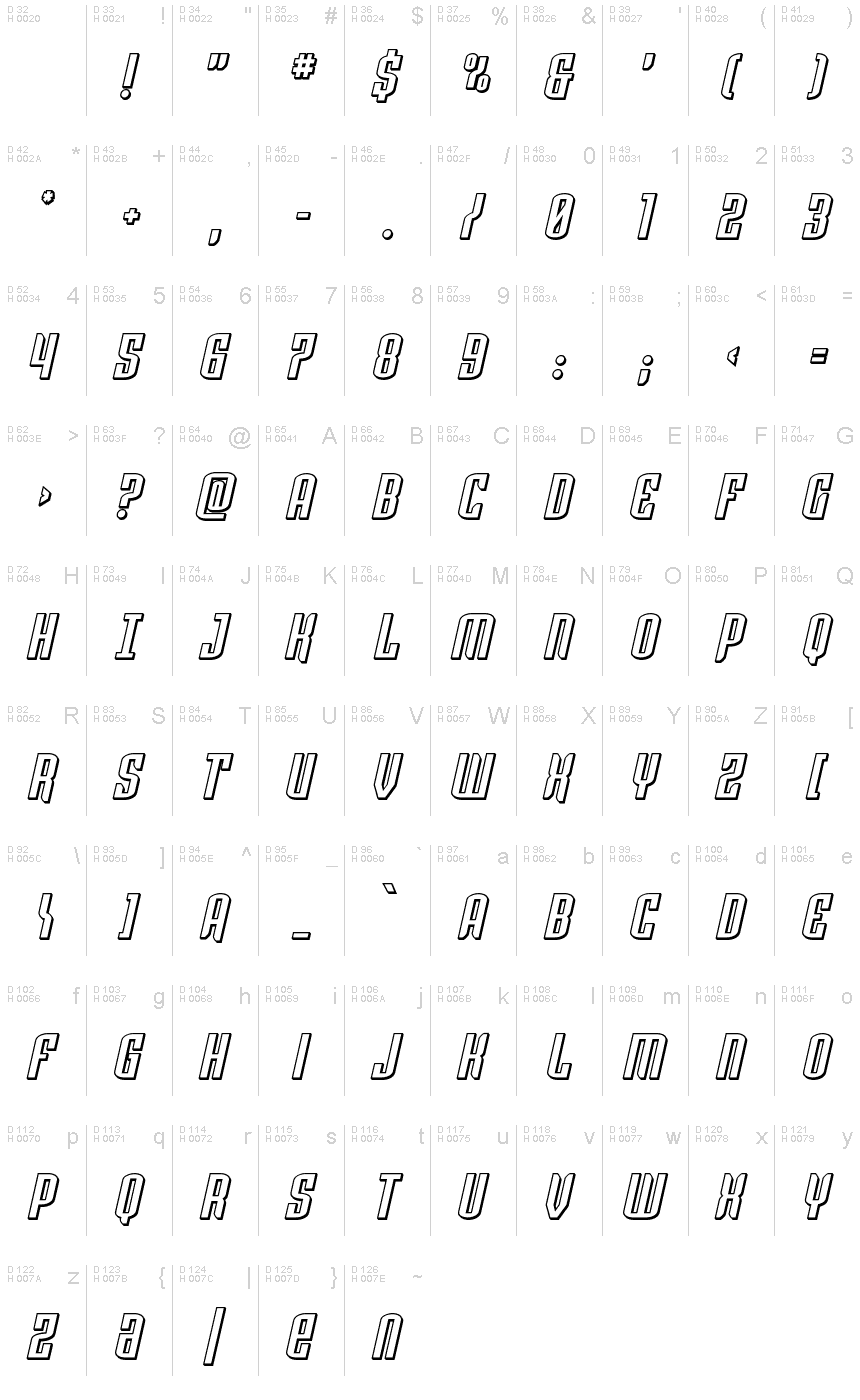
Icewave 3D Italic
Icewave 3D Italic, a captivating addition to the Icewave font family by Iconian Fonts, brings a unique touch to your creative projects. This mesmerizing display font with its semi-light weight and extra-condensed width offers an enchanting blend of elegance and modernity. Perfect for eye-catching headlines, logos, and posters that demand attention, Icewave 3D Italic adds depth with its dynamic 3D style. Bring life to your branding campaigns or create stunning visual effects in video game titles, album covers, or futuristic movie posters. Let this striking font ignite your imagination and elevate your designs to the next level.